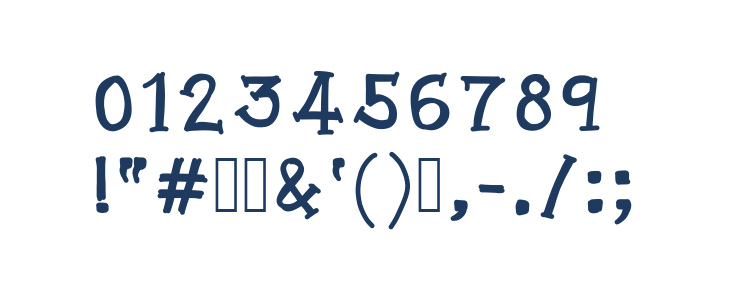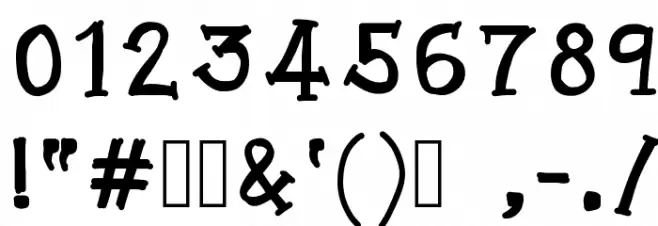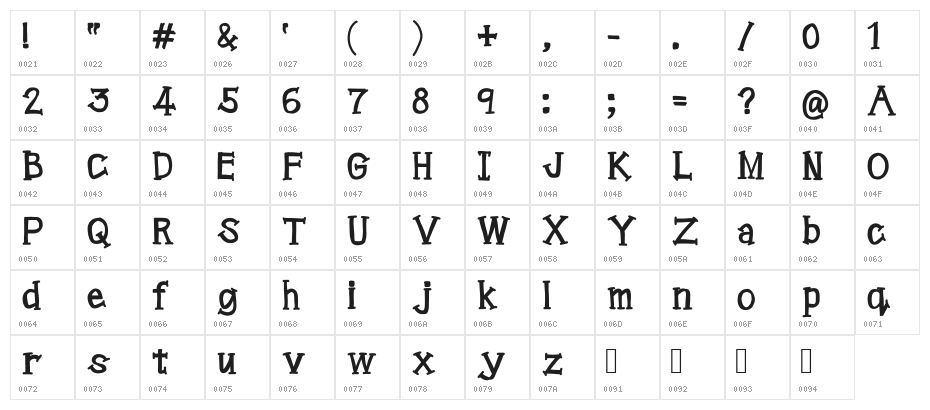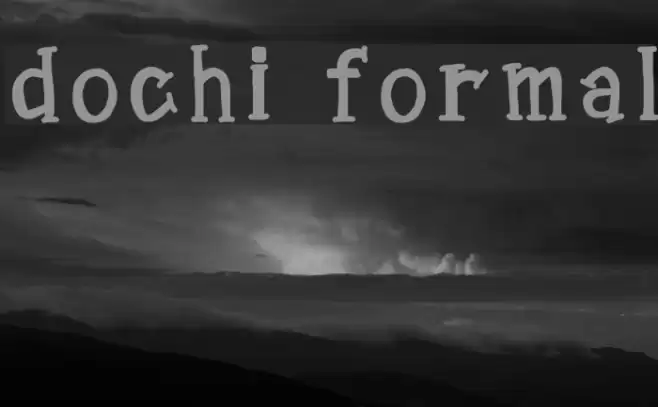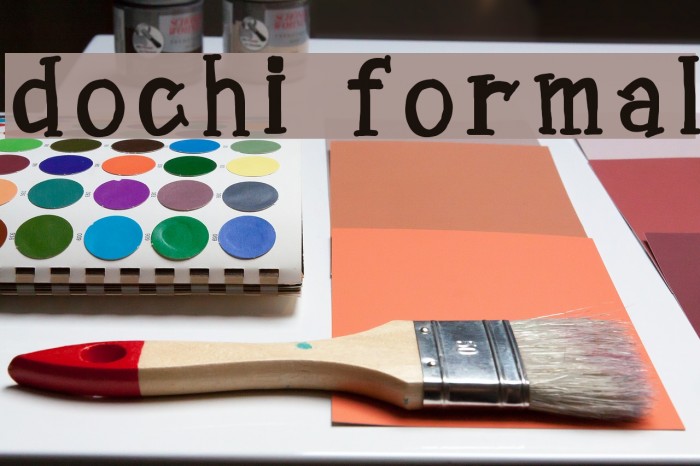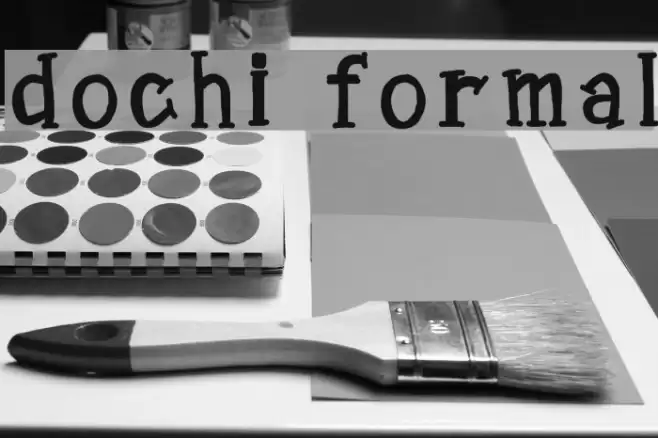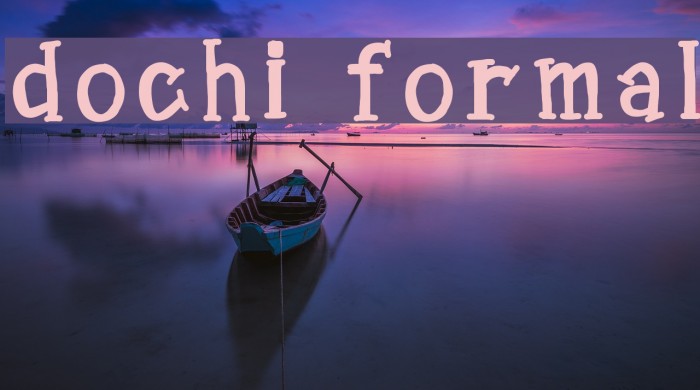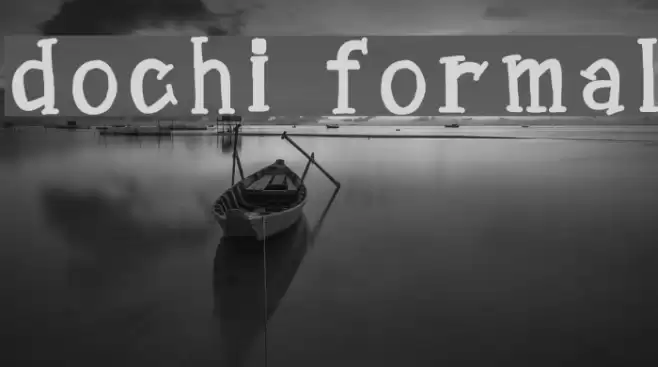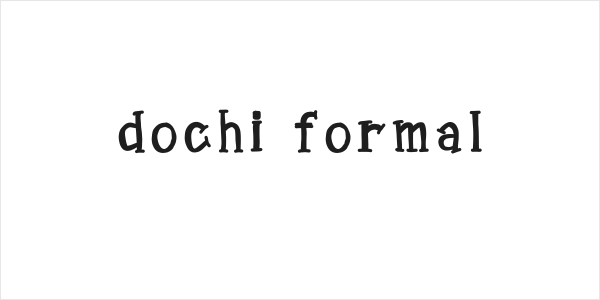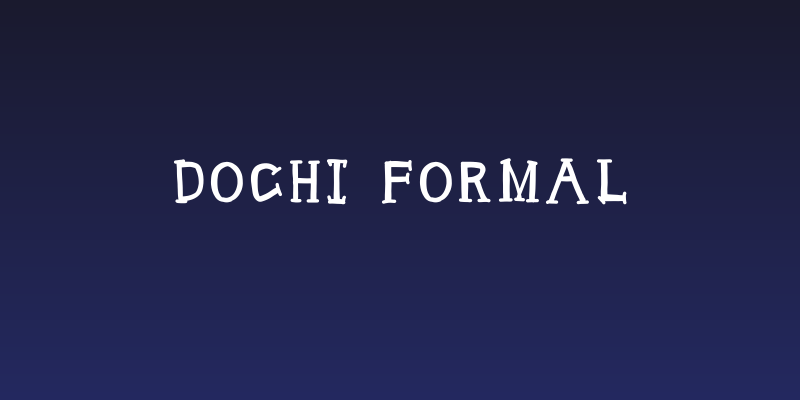
dochi formal Font
dochi formal Description
This font features a playful and quirky design with a hand-drawn aesthetic. The letters have uneven strokes and irregular shapes, giving them a whimsical and informal appearance. The uppercase characters are bold and slightly exaggerated, while the lowercase letters maintain a consistent style with a touch of irregularity. The numbers and special characters follow the same playful theme, making the font suitable for creative and fun projects. The overall style is decorative and unique, with a sense of personality and charm.
Proposed ProjectsIdeal for children's books, playful branding, creative posters, and informal invitations.